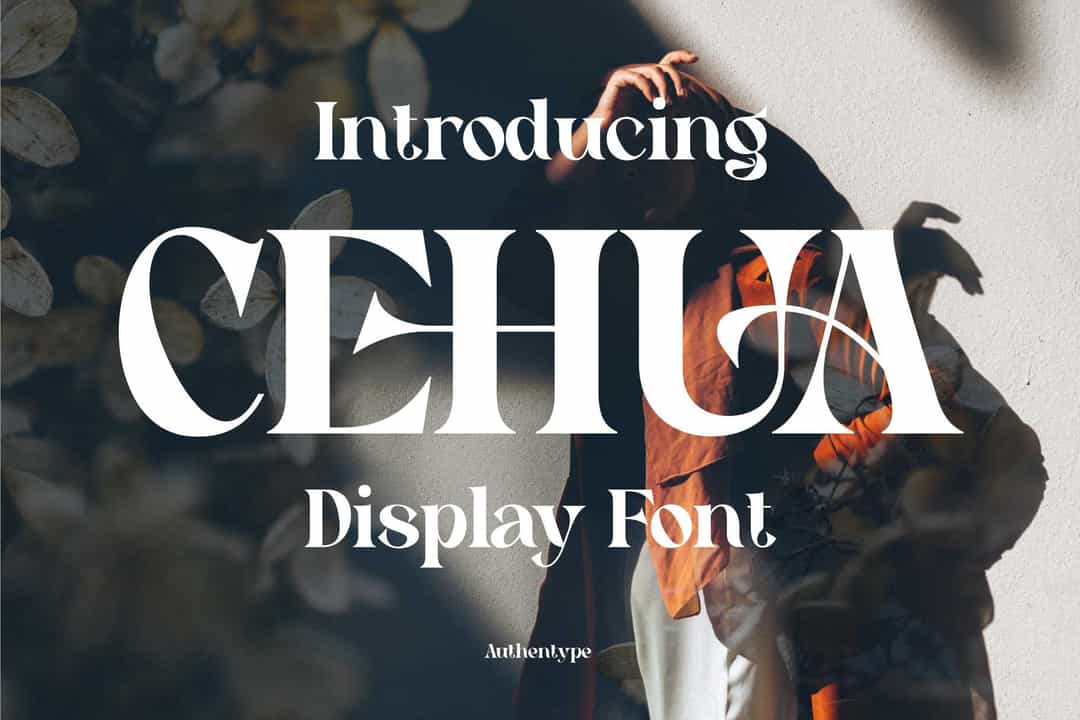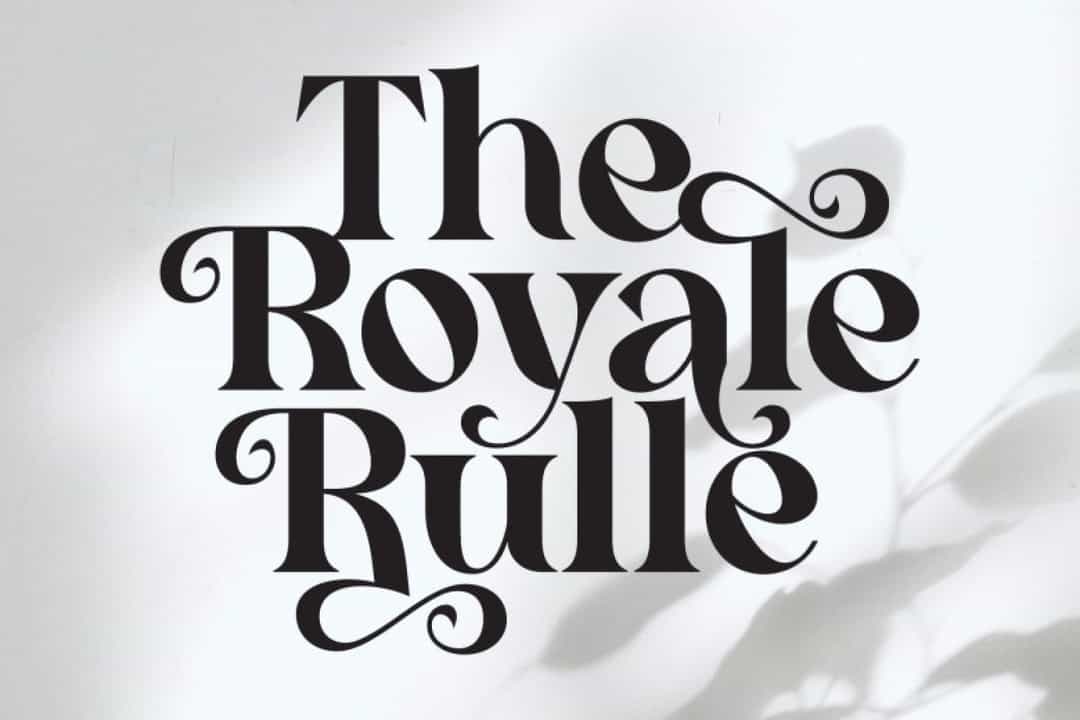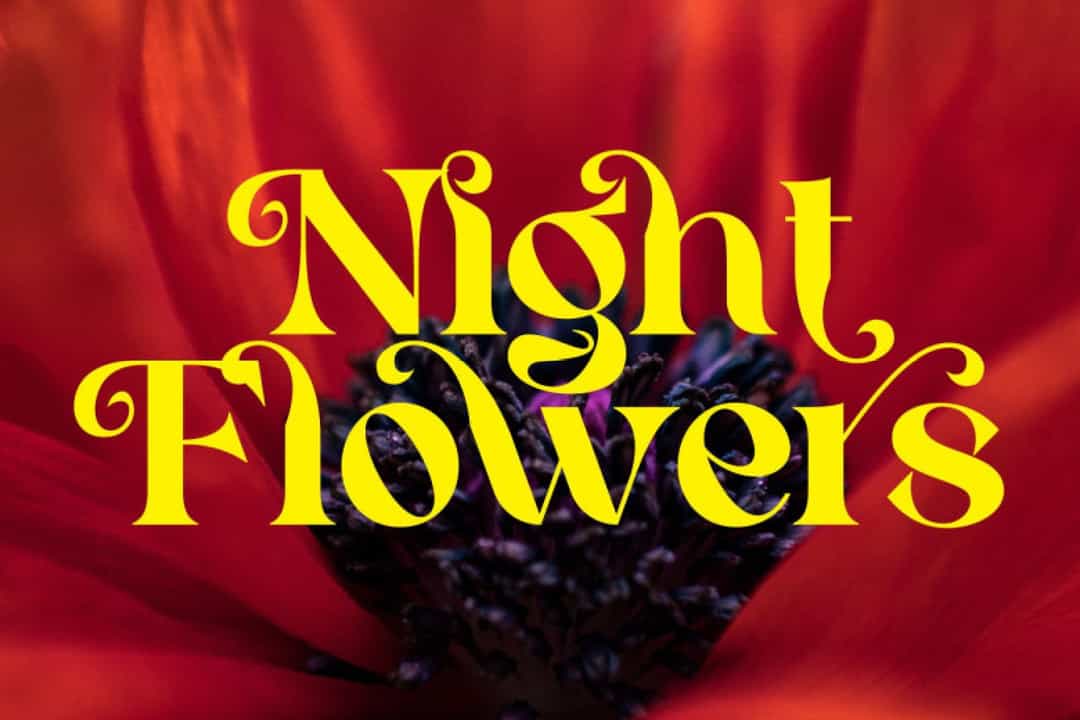
Cehua is an eye-catching and boldly scripted serif font designed by Authentype. It retains its elegant calligraphic style while remaining modern and contemporary, making Cehua ideal for beauty product branding as its feminine appearance lends an inviting appearance.